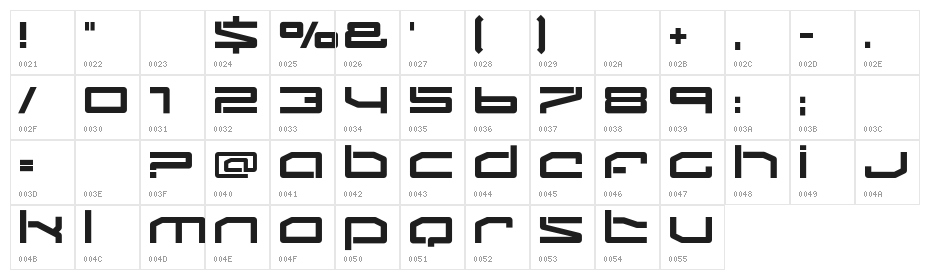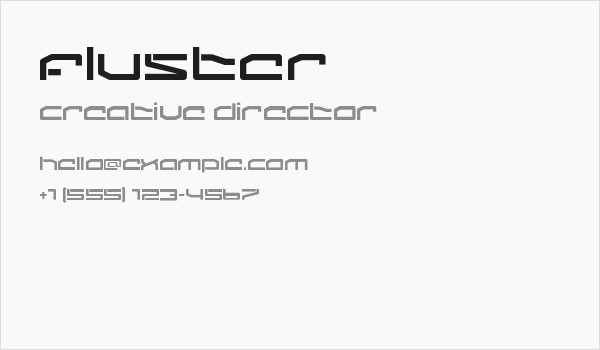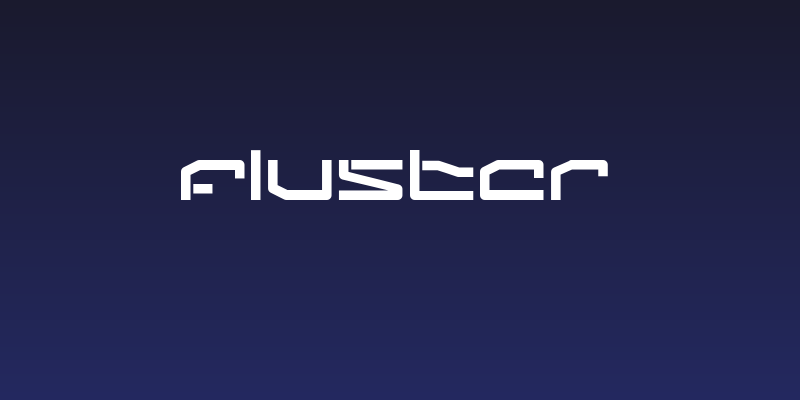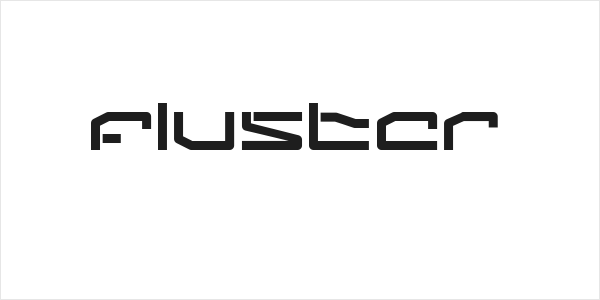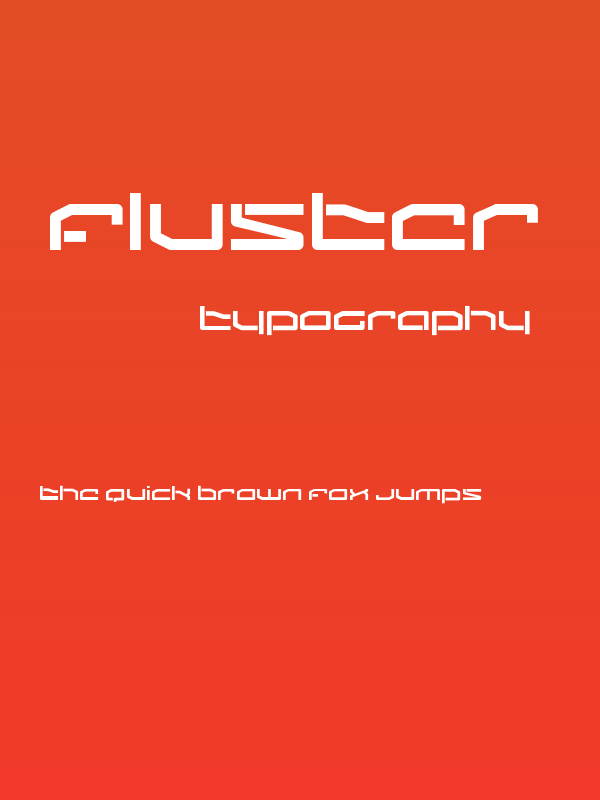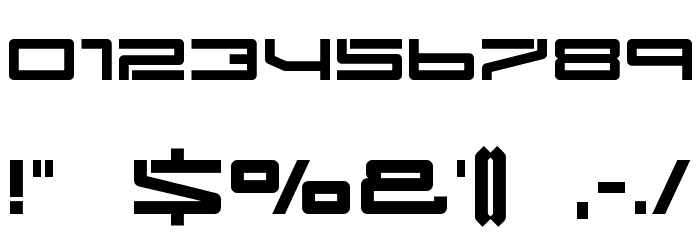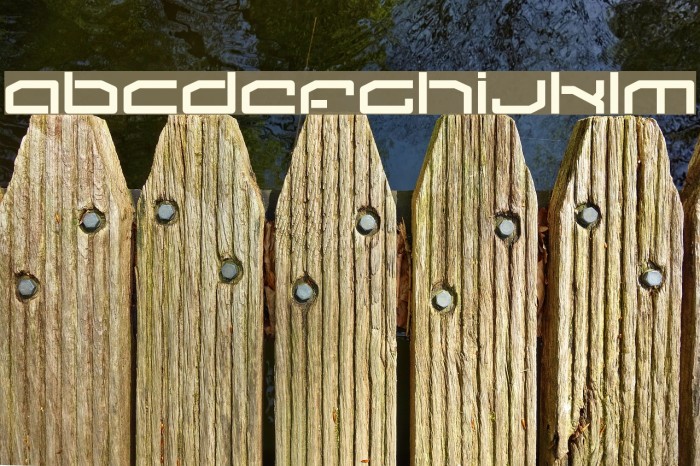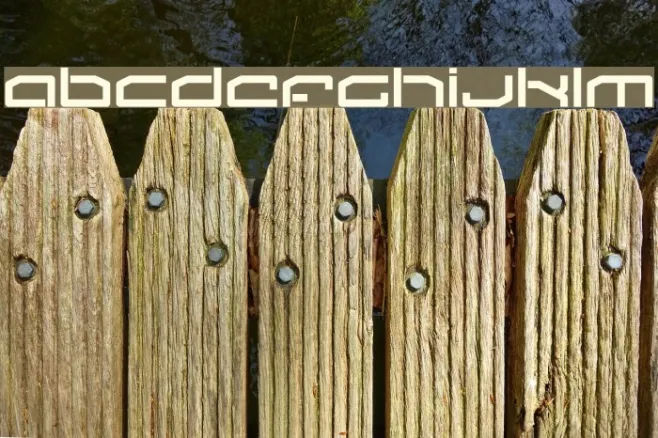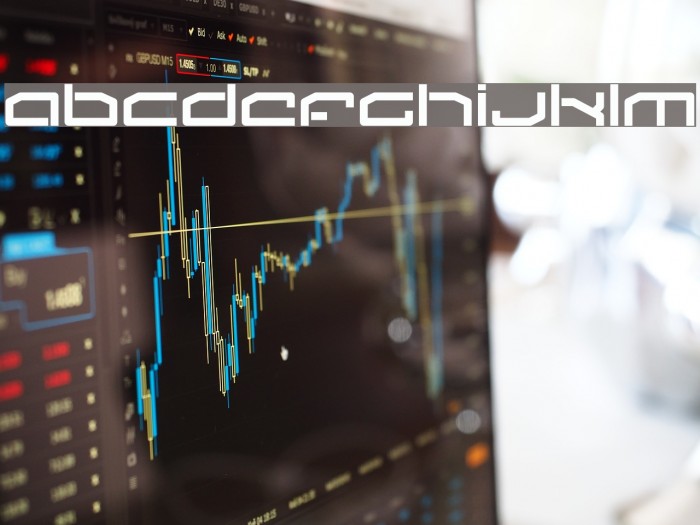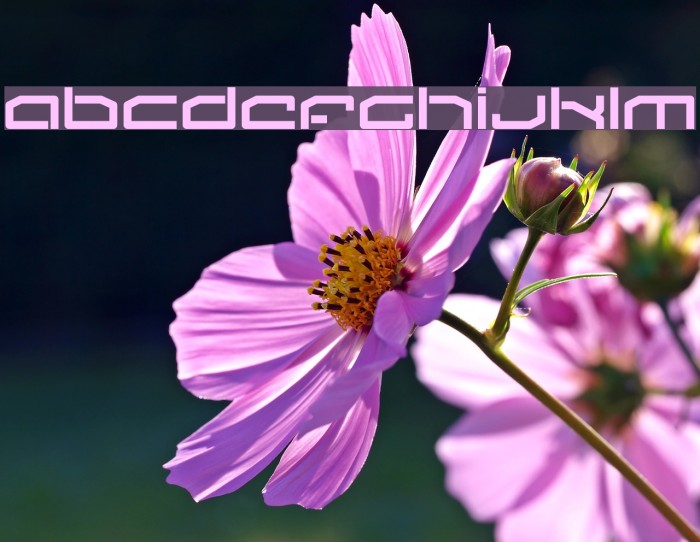
Fluster Font
Fluster Description
This font features a futuristic and geometric design, characterized by its angular and block-like letterforms. The uppercase and lowercase letters share a consistent style, with sharp edges and a uniform thickness throughout. The numerals and special characters maintain this cohesive look, making the font suitable for modern and tech-oriented themes. The design is clean and minimalistic, with a focus on readability and a unique aesthetic that stands out. Its structured appearance makes it ideal for projects that require a contemporary and innovative touch.
| Proposed Projects | Ideal for tech branding, sci-fi posters, video game interfaces, and modern advertising. |